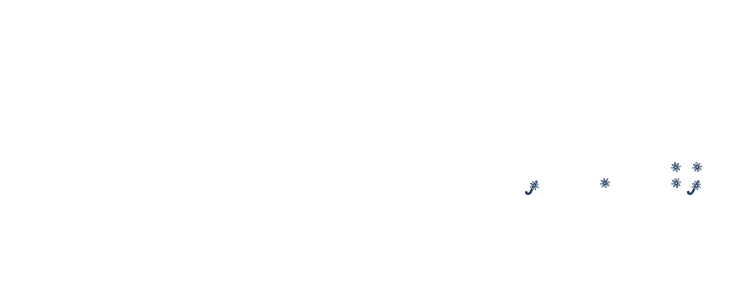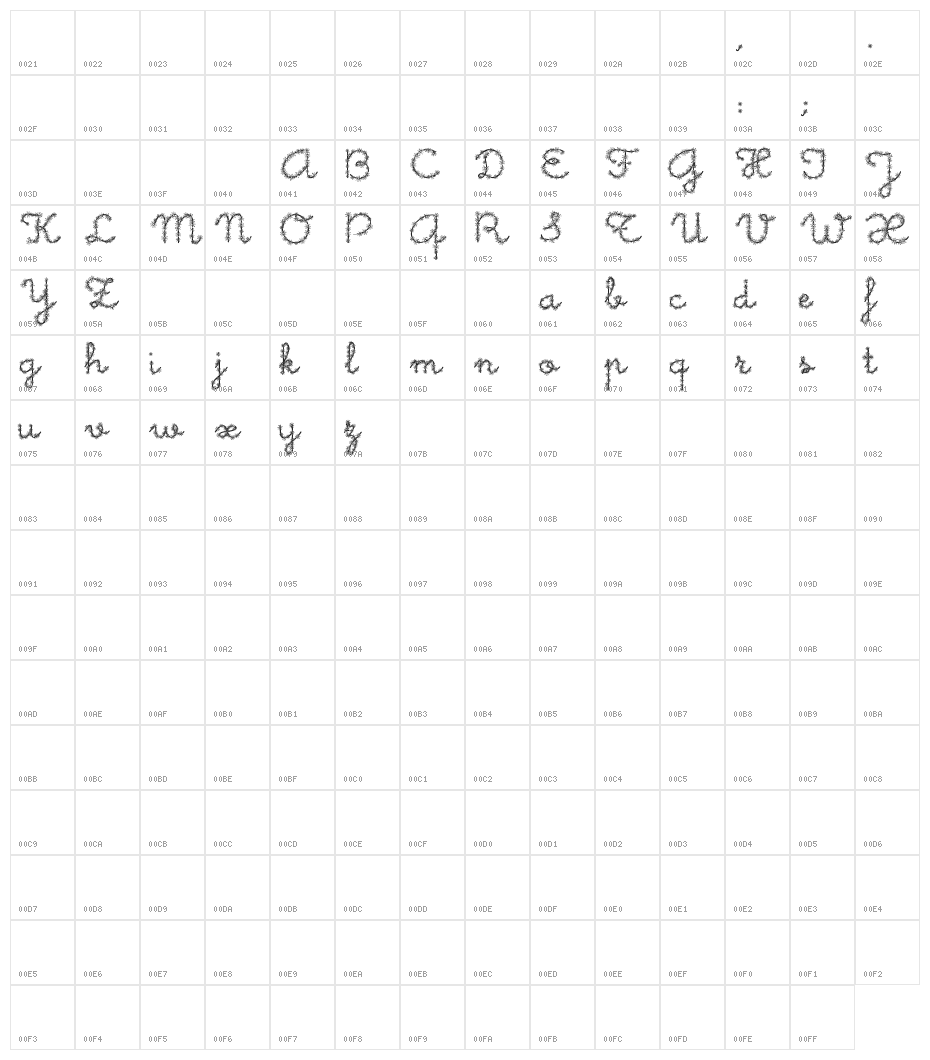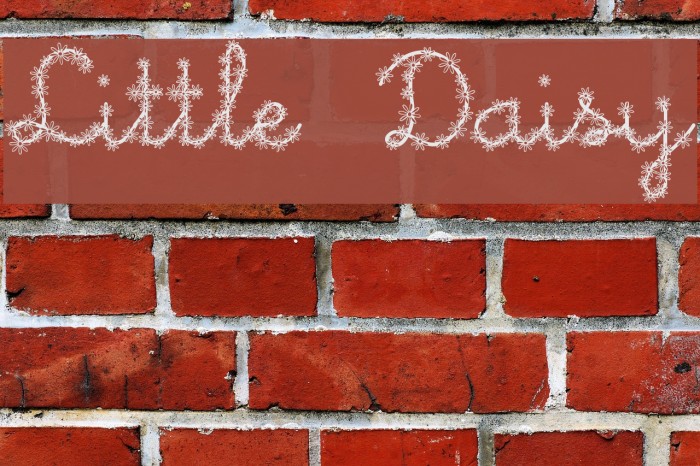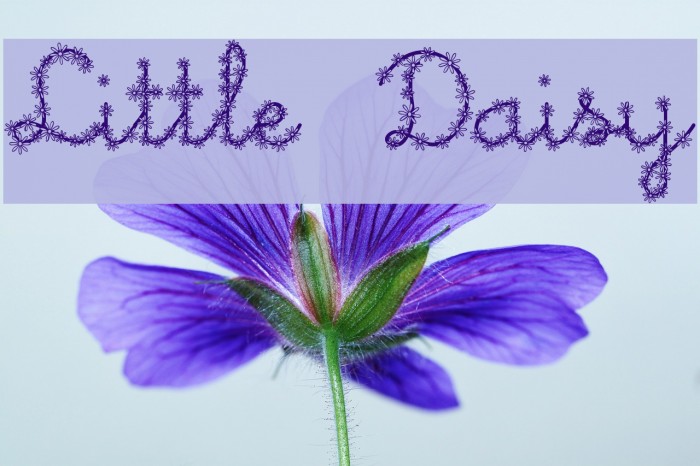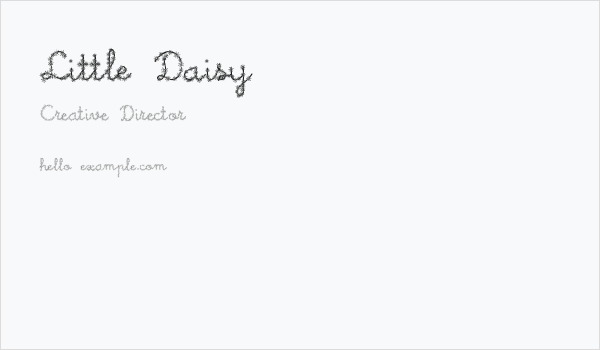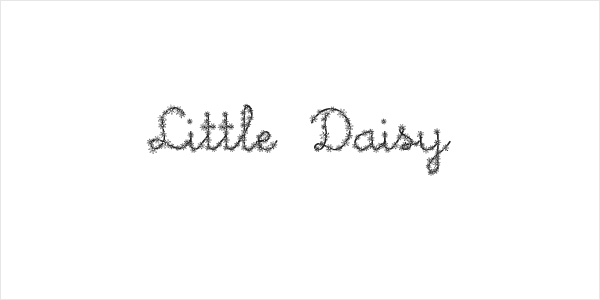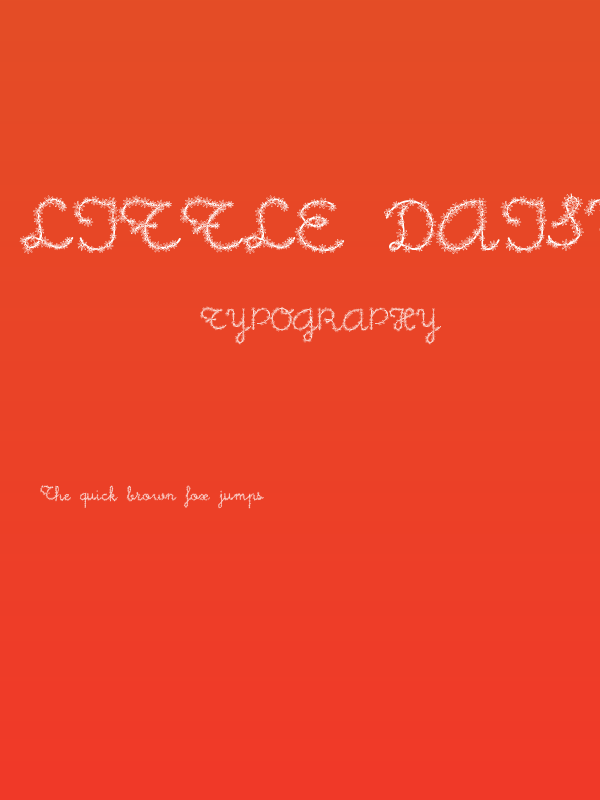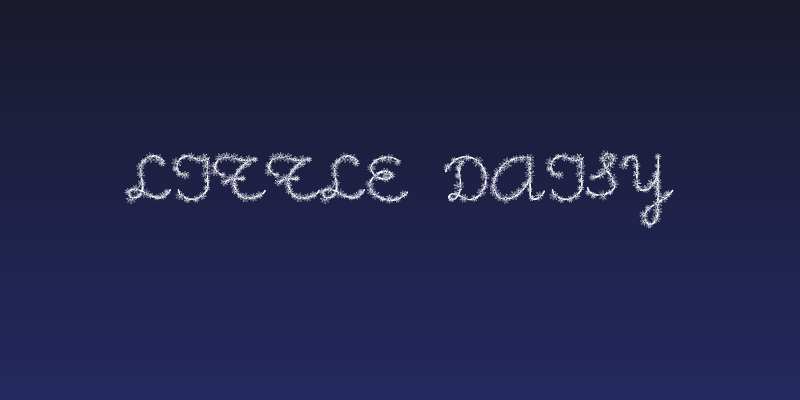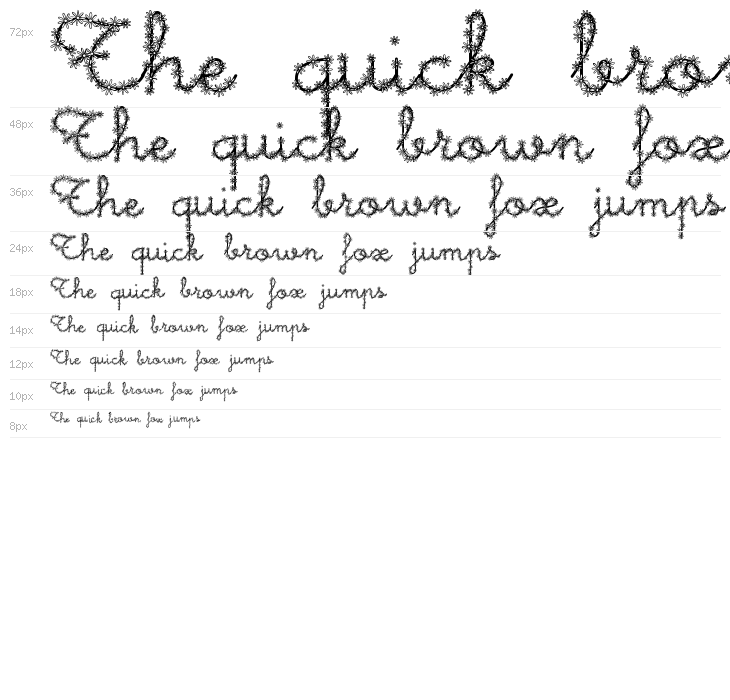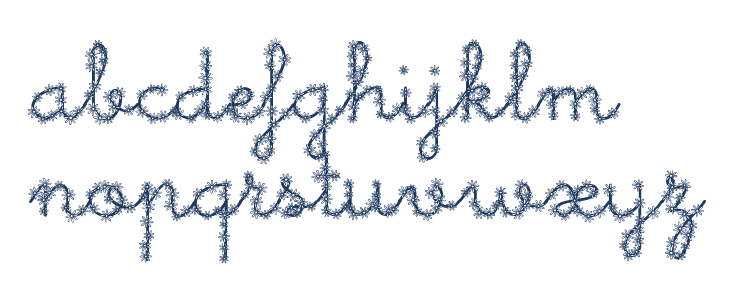
Little Daisy Font
Little Daisy Description
This font features a whimsical, decorative style with each character adorned with small daisy-like embellishments. The letters are connected in a cursive manner, giving it a flowing and elegant appearance. The intricate floral details add a playful and artistic touch, making it stand out for creative projects. The uppercase and lowercase letters maintain a consistent style, with the embellishments providing a unique texture. The font is visually engaging and suitable for designs that require a touch of nature-inspired creativity.
| Use Case | Logos, Invitations, Artistic Designs |
| Proposed Projects | Ideal for wedding invitations, greeting cards, nature-themed branding, and artistic posters. |